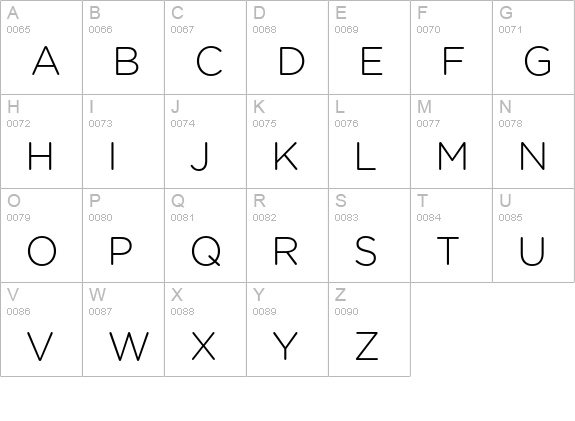
Gotham Rounded Light Font Details
Gotham Rounded Light is a refined, elegant variant in the Gotham typeface family \xE2\x80\x94 well suited to elegant body text, refined sub-headings, and luxury branding.
Introducing Gotham Rounded Light font, a modern and stylish typeface that exudes elegance and sophistication. This versatile font is perfect for a wide range of design projects, from branding to editorial design and everything in between. With its clean lines and rounded edges, Gotham Rounded Light is both easy on the eyes and highly readable, making it ideal for both print and digital applications. And the best part? Gotham Rounded Light font is available for free download at FontsMarket.com! Now you can enjoy the sleek and contemporary look of this font without breaking the bank. Whether you're a professional designer or just someone looking to spruce up their projects with a fresh new font, Gotham Rounded Light is sure to impress. Download it today and elevate your design work to the next level.